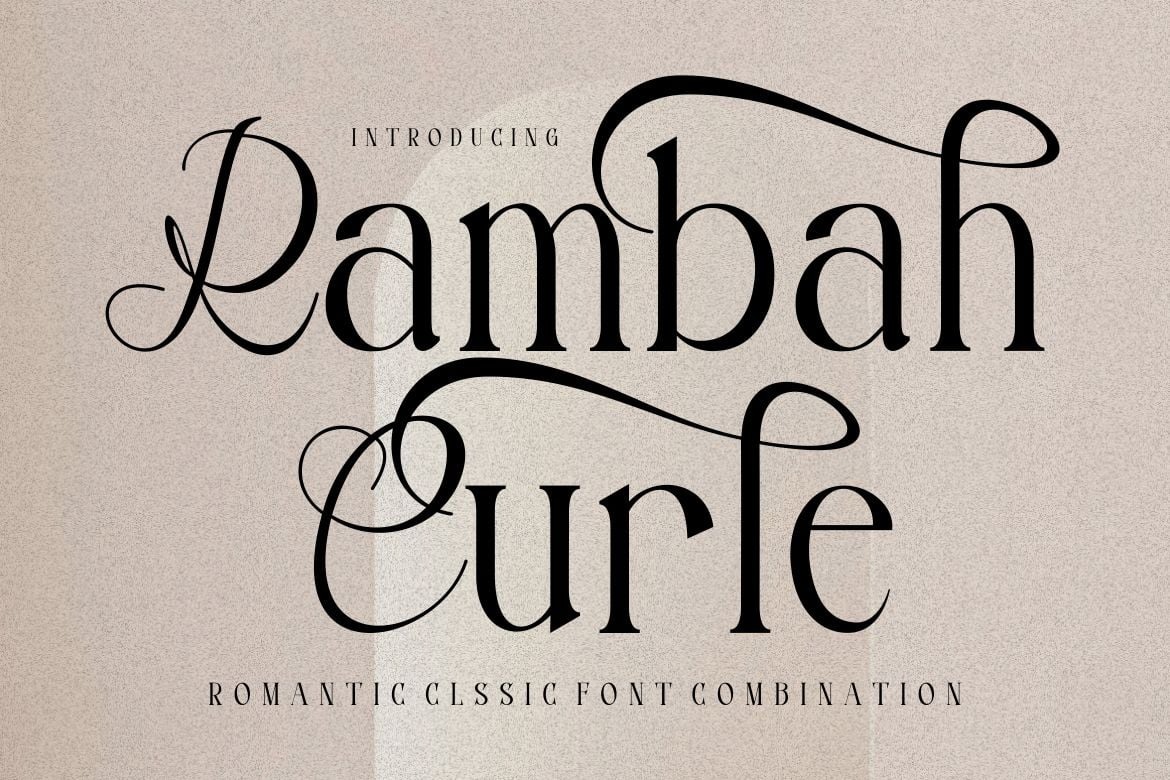
Rambah Curle Font
Rambah Curle Font is a distinctive and expressive font crafted to bring personality, structure, and creative energy into your projects. RambahCurle a modern serif typeface designed for timeless elegance and visual storytelling. Its crisp contrast and subtle ligatures make it ideal for branding, fashion editorials, and luxury packaging. Crafted with cinematic grace, this typeface evokes sophistication and aesthetic harmony in every composition.